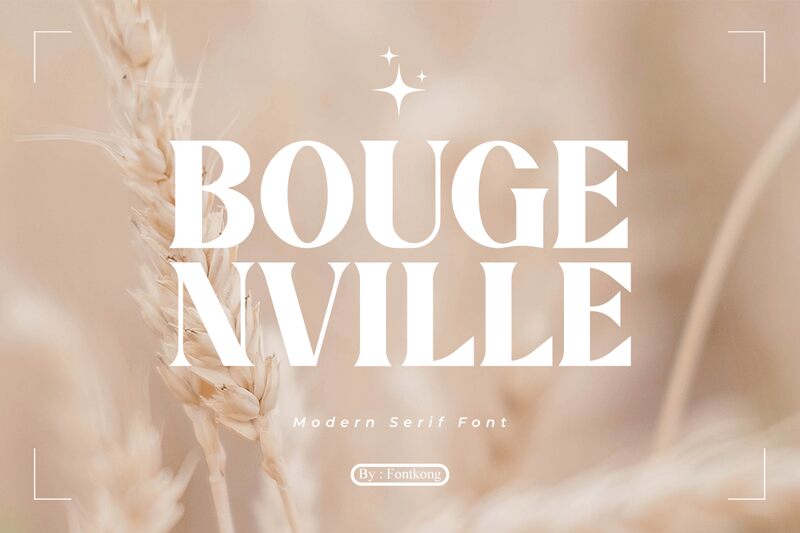
Bougenville font by Kong Font is a free serif typeface that embodies sophistication and elegance. With classic influences and a modern twist, this font offers a sleek and contemporary appearance. Its refined features make it an ideal choice for those looking to communicate an upscale and versatile aesthetic.
Bougenville is well-suited for a range of design projects, including luxury branding, high-end fashion magazines, elegant wedding invitations, and upscale product packaging. It shines in editorial layouts, website design, restaurant menus, book covers, corporate identities, and prestigious event invitations.